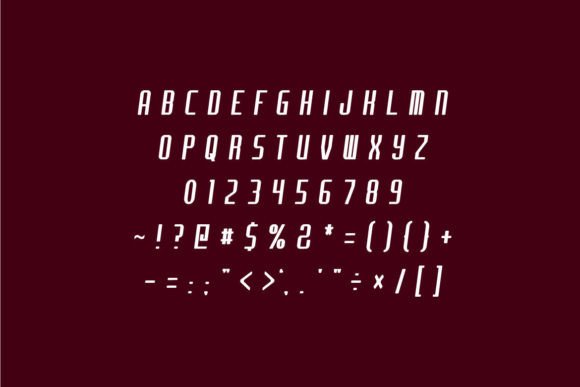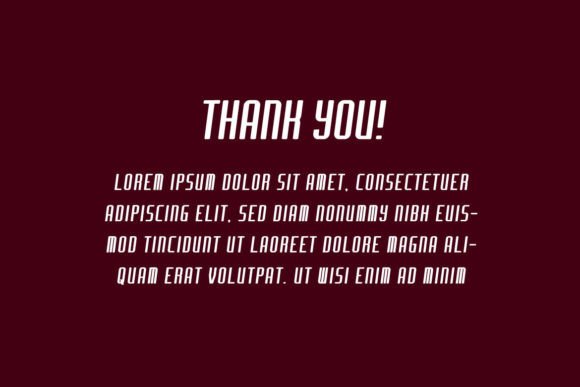
Introduction to Kangoru Font
Have you ever been stuck on a creative project, staring at a blank page or screen, waiting for that perfect font to come along and bring your idea to life? We’ve all been there. But what if I told you that there’s a font that can make your designs stand out from the crowd, and give you the confidence to take your creative project to the next level?
Enter the Kangoru Font, a modern, clean, and eye-catching display font that’s perfect for posters, cards, book titles, headlines, news, banners, flyers, stationery, and many more. With its high-quality design and transparent background, this font is a valuable resource for designers looking to elevate their work.
Key Features of Kangoru Font
- High-quality design resource ideal for creative projects and digital applications
- Unique, modern design with a transparent background, allowing for versatile usage
- Perfect for use in graphic design, web design, and digital publishing
Honest Review: Kangoru Font
One of the standout features of the Kangoru Font is its high-quality design. The font has a unique, creative feel to it that makes it perfect for a wide range of projects, from branding to digital design. The transparent background also makes it easy to layer and customize to fit your specific needs.
Here are some of the things that work well for the Kangoru Font:
- ✨ Unique and creative design that stands out from the crowd
- ✨ High-quality font that’s perfect for both digital and print design
One potential limitation of the Kangoru Font is that it may not be suitable for projects that require a more conservative or traditional design aesthetic. Additionally, some users may find the font’s creative feel to be overwhelming or difficult to work with.
Overall, I’m really impressed with the Kangoru Font and would definitely recommend it to designers looking for a unique and high-quality design resource. It’s perfect for creative projects where you want to make a statement and stand out from the crowd.
The Kangoru Font is a high-quality design resource that can be used in a variety of creative projects. Some common use cases include:
- Logo design: The Kangoru Font is perfect for creating elegant and sophisticated logos.
- Branding: Use the Kangoru Font to create a consistent brand identity across all your marketing materials.
- Design templates: The Kangoru Font can be used to create high-quality design templates for social media, presentations, or documents.